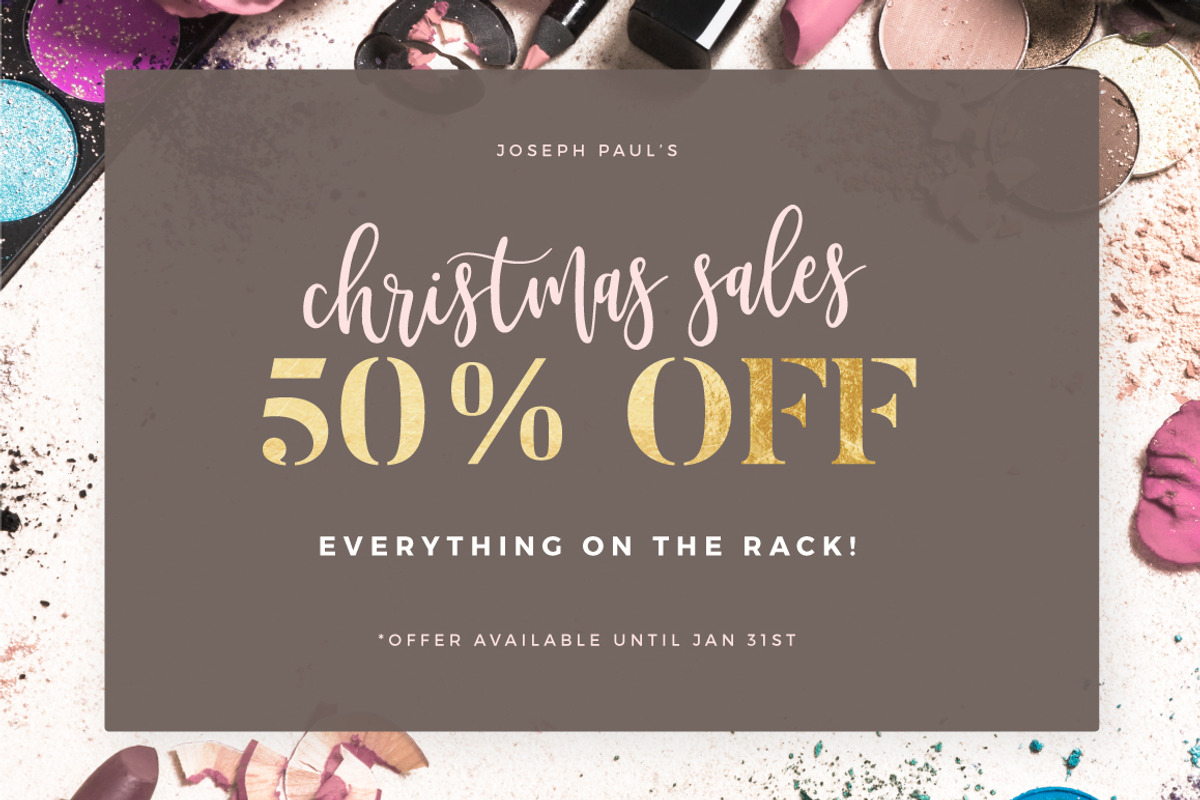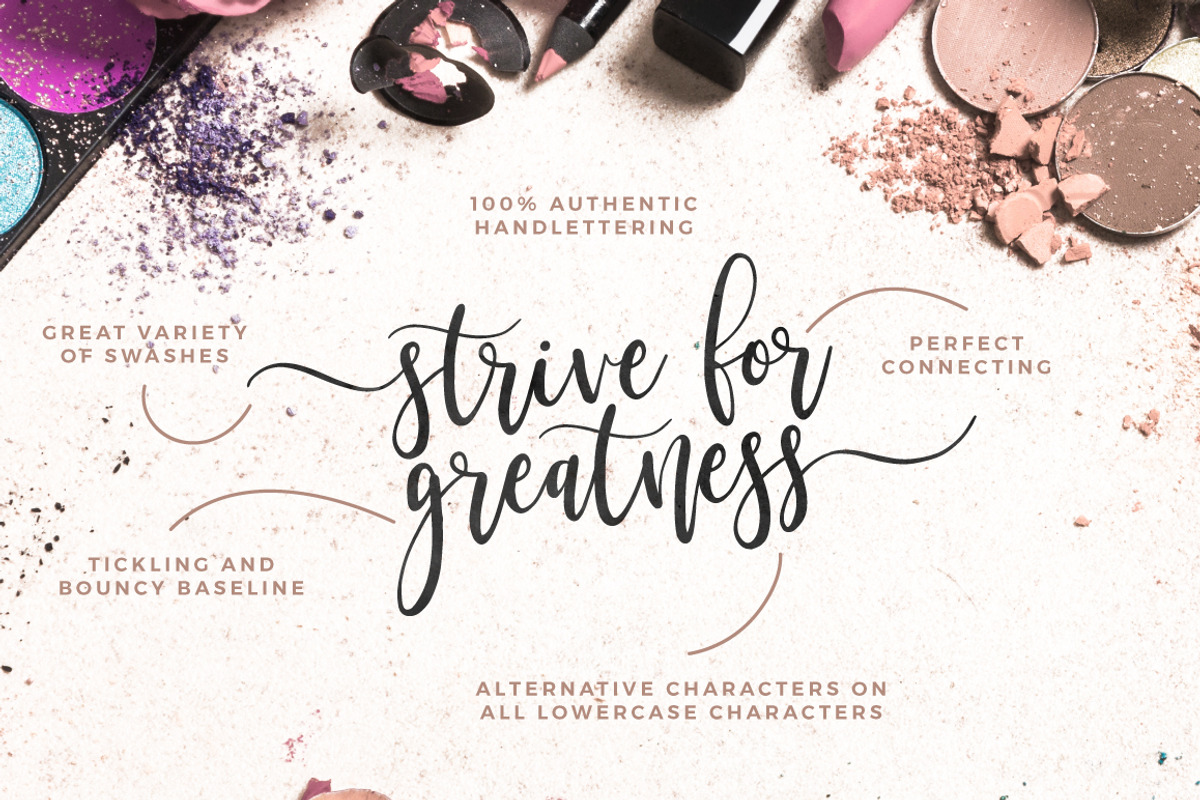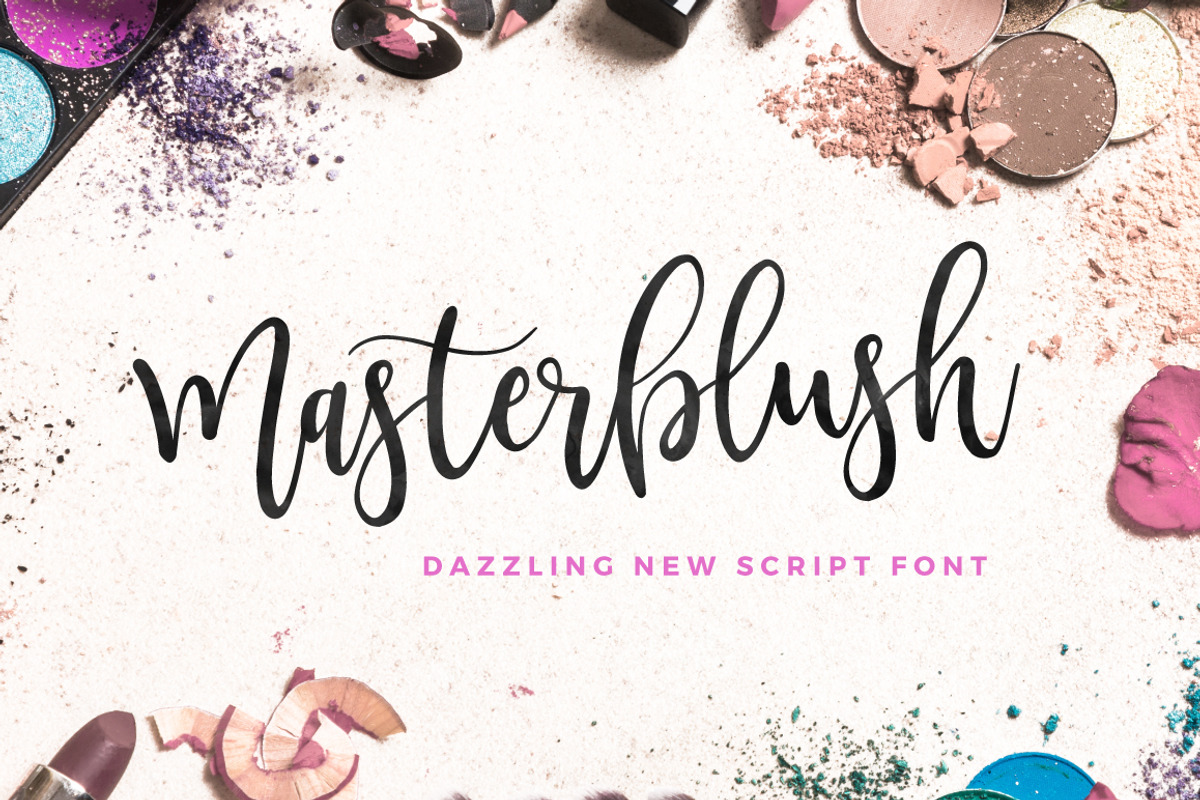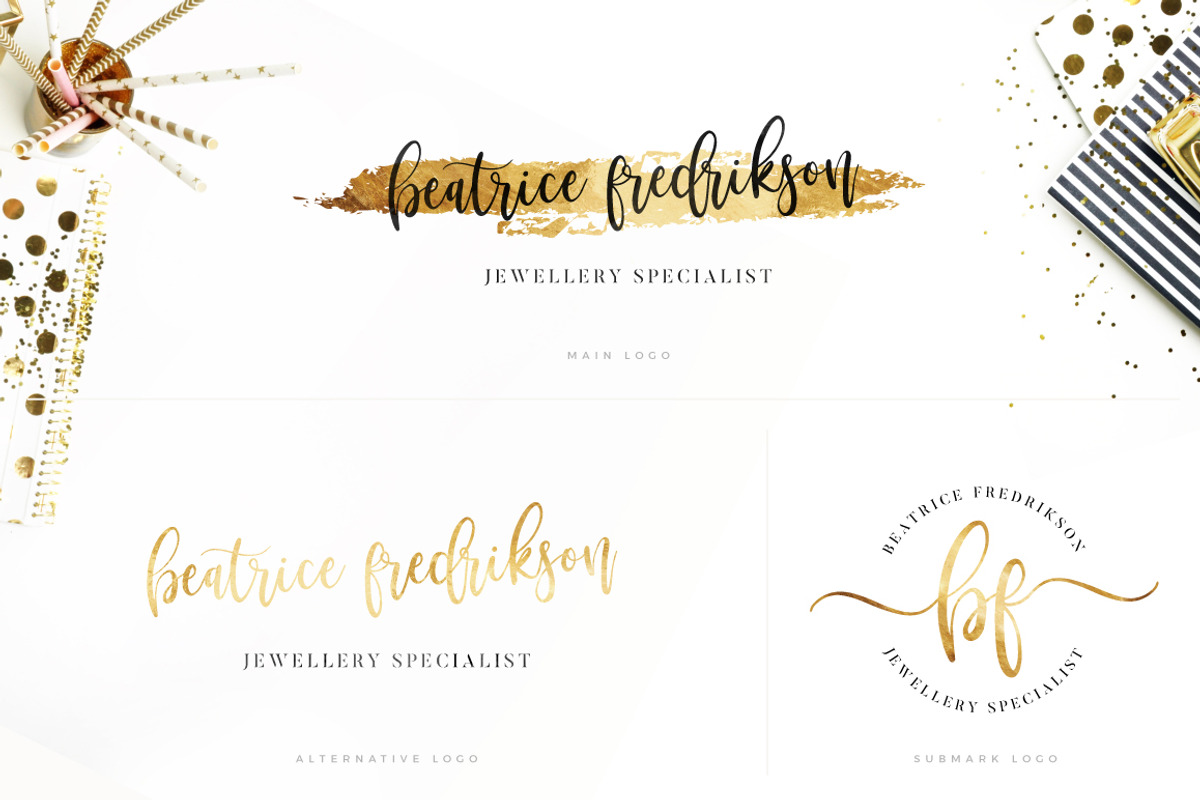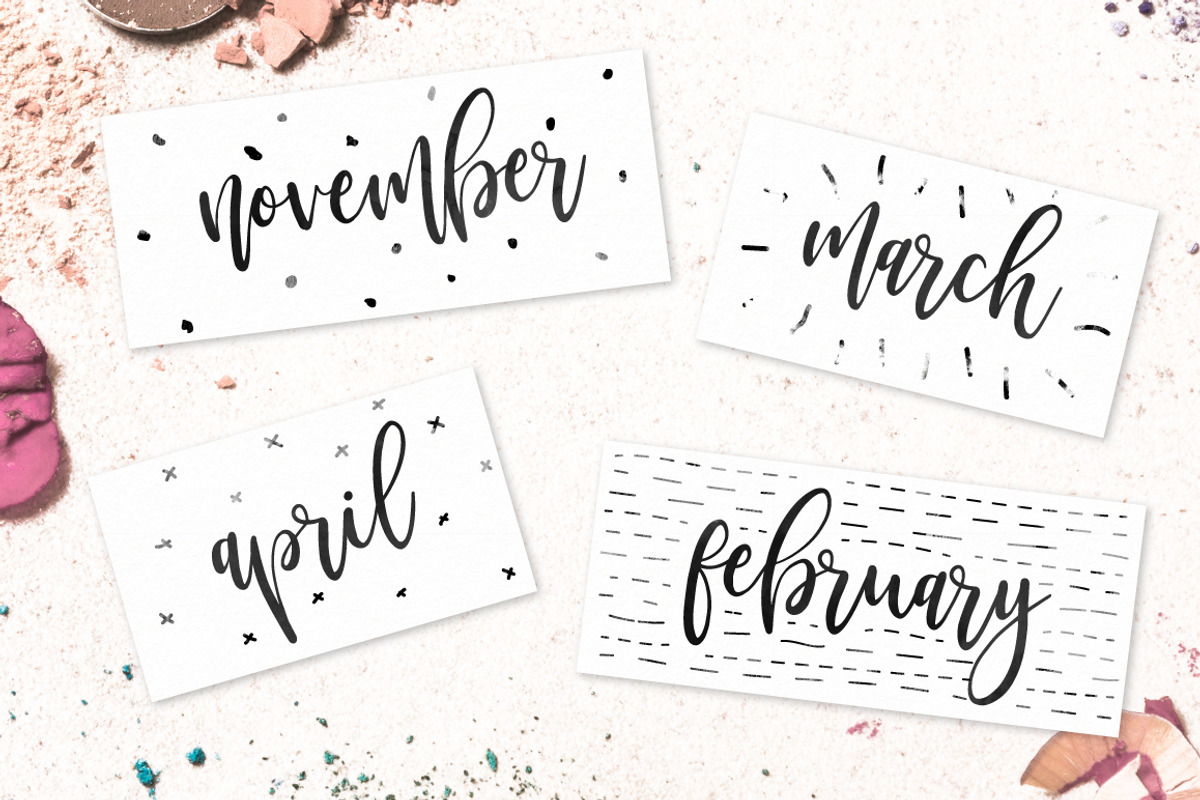
Masterblush Font
Masterblush Font by Mats-Peter Forss is a font selected for branding, posters, packaging, typography.
- Masterblush includes start and end swashes.
- At least two end swashes included for each character.
- It's an ultra-modern typeface with a tasty flow, snap-perfect characters and start & end swashes.
- With its alternate characters you'll instantly get the authentic handmade look to it.
- At least two for each lowercase character and you can even use them as swooshes.
- Masterblush Swashes (1 font) - Full swashes for lowercase characters to make your design look superbly unique!!
Why Masterblush Font is worth a look
Masterblush Font by Mats-Peter Forss fits naturally into Branding, posters, packaging, typography.